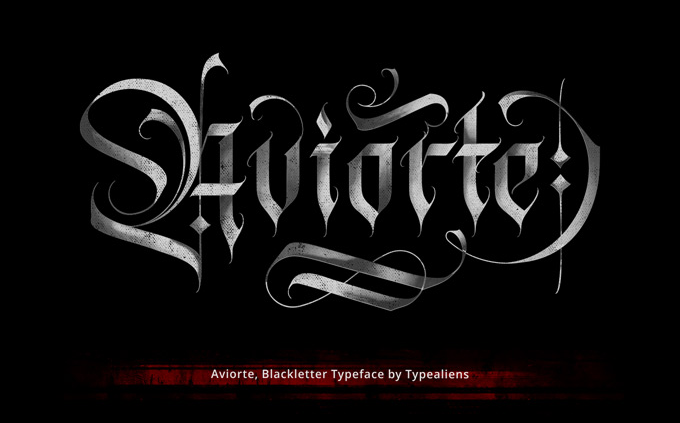
For today’s freebie we have an elegant, clean and artistic blackletter font called Aviorte.
The font packed with the diverse uppercase letters, numerals, themed punctuation marks, you can always make your composition look very beautiful and decorative.
Aviorte Blackletter Font